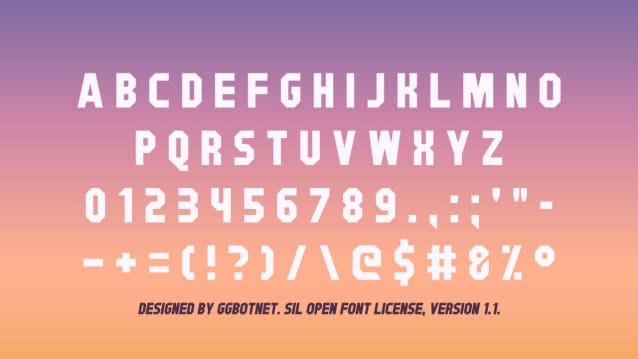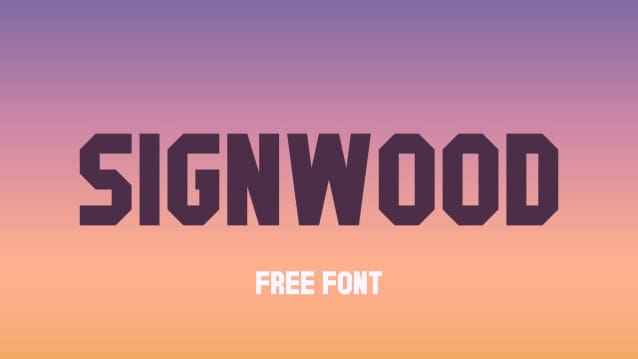
Signwood Font
Signwood Font, this bundle features strong, confident and powerful typefaces designed to work great with sports logos, club branding, apparel applications, labels and more.